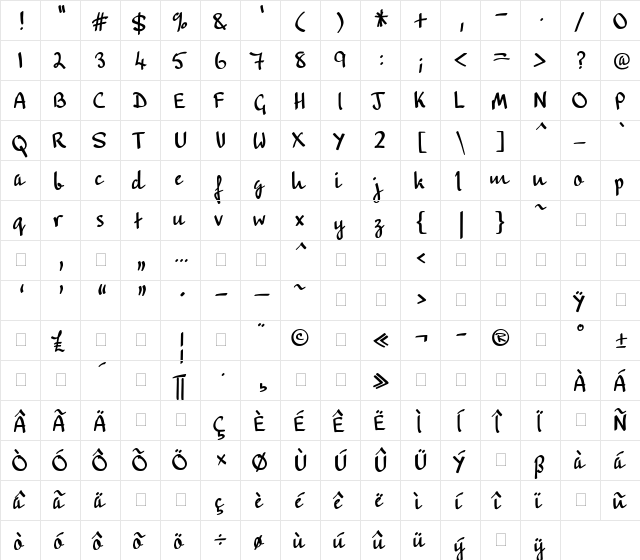
Rainbow (ParaType) Regular
Design Context for Rainbow (ParaType) Typeface
Rainbow (ParaType) is a composed and adaptable typeface that performs quietly and consistently across a wide range of design contexts.